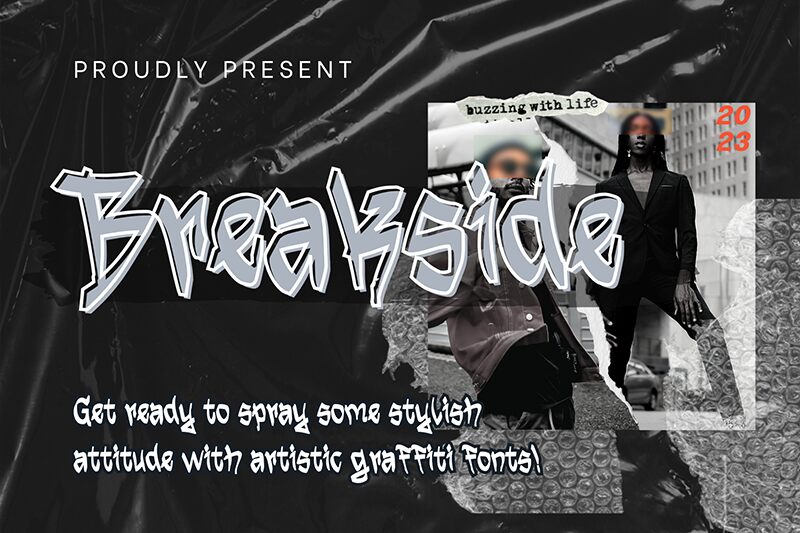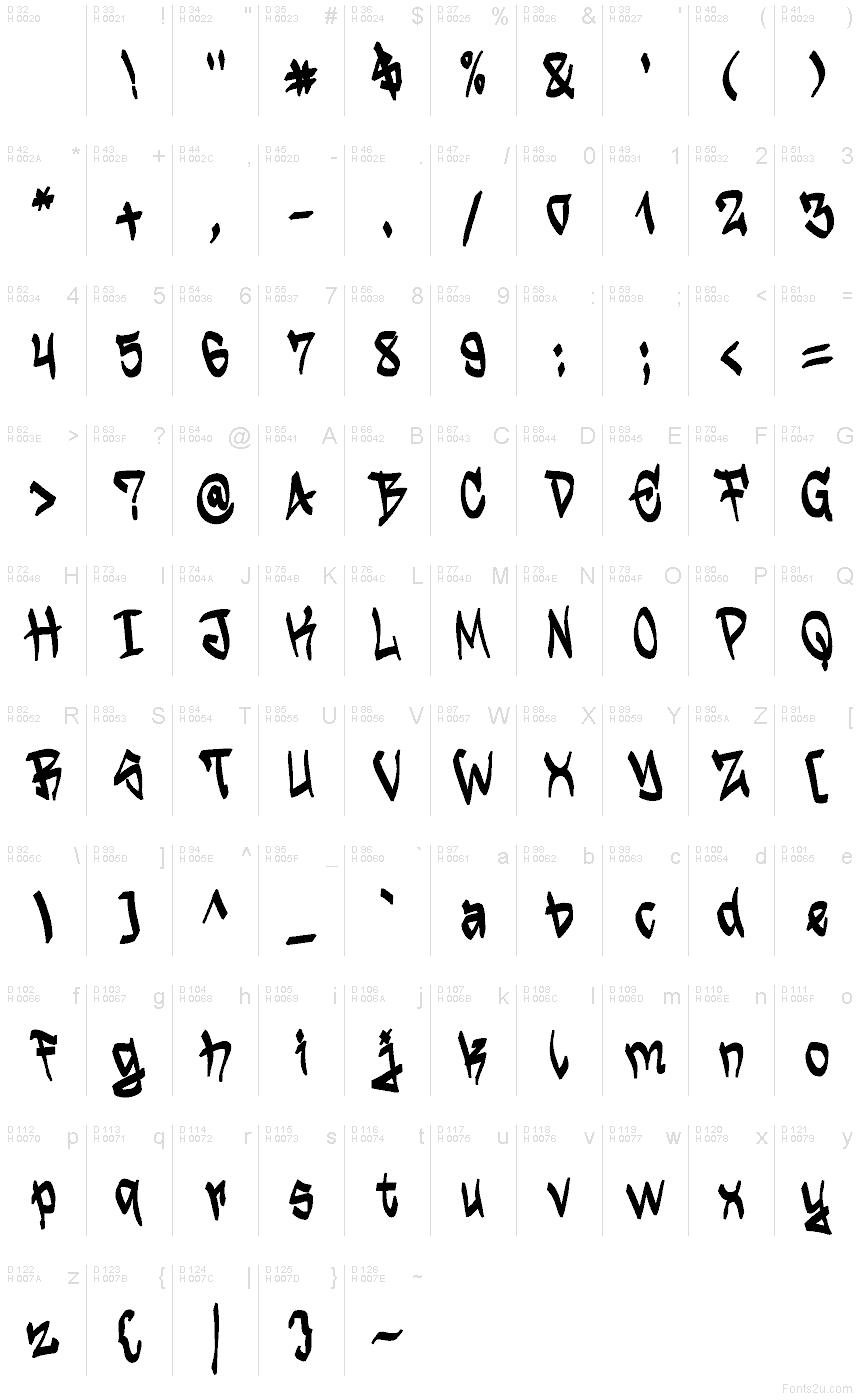
Breakside font by Sarif Letter is a free graffiti font typeface. It hits the wall with jagged, brush-cut strokes and sharp, lightning-like kinks that snap through each word. Letters crowd together with a gritty, inky texture and a restless rhythm, giving headlines that raw, just-sprayed energy without turning into chaos.
Using Breakside, you’ll punch up music flyers, streetwear labels, skate shop branding, album art, event posters, YouTube thumbnails, and bold stickers. The tightly packed forms read loud at large sizes and carry attitude even in short subheads. For balance, pair this free font with a clean, narrow sans for body copy, and let Breakside handle the shout lines.